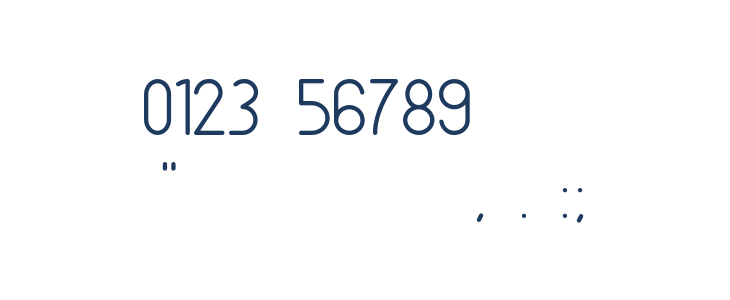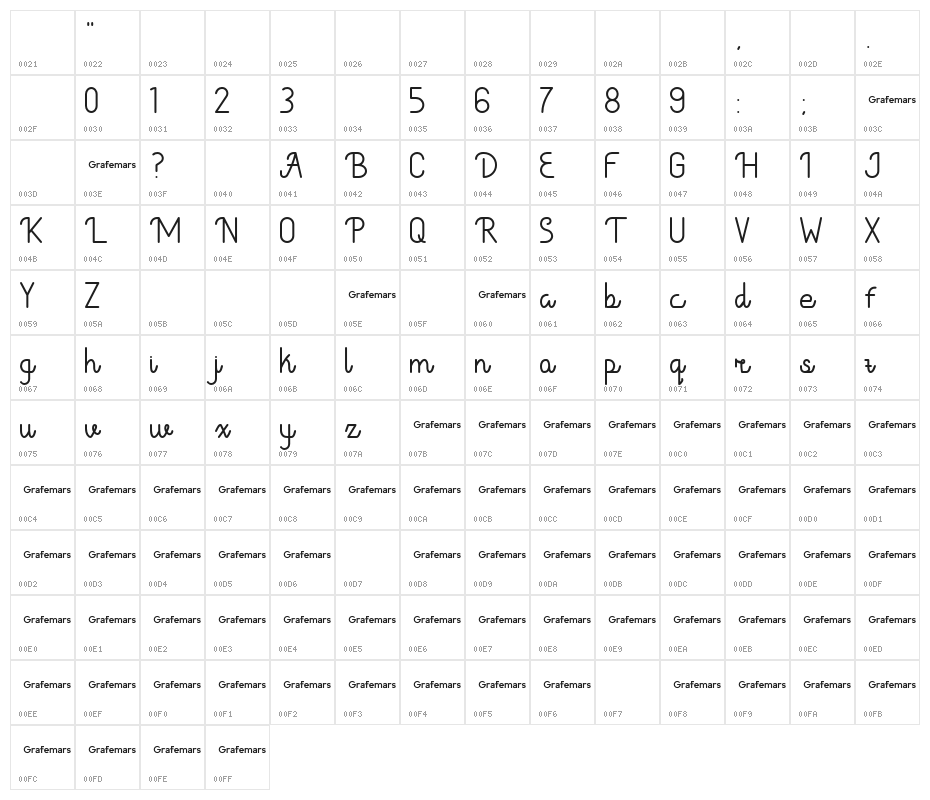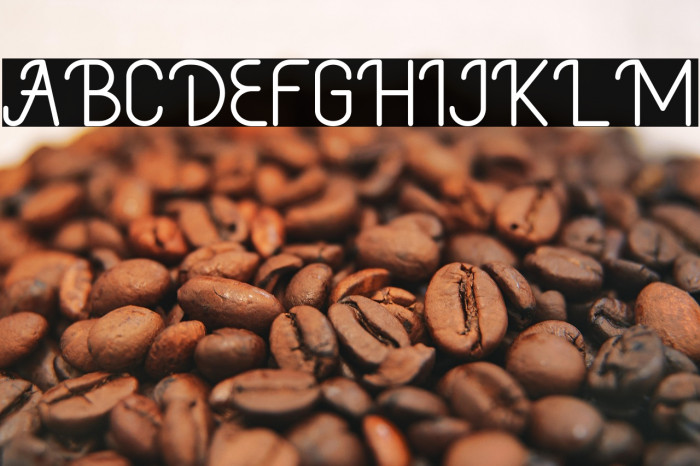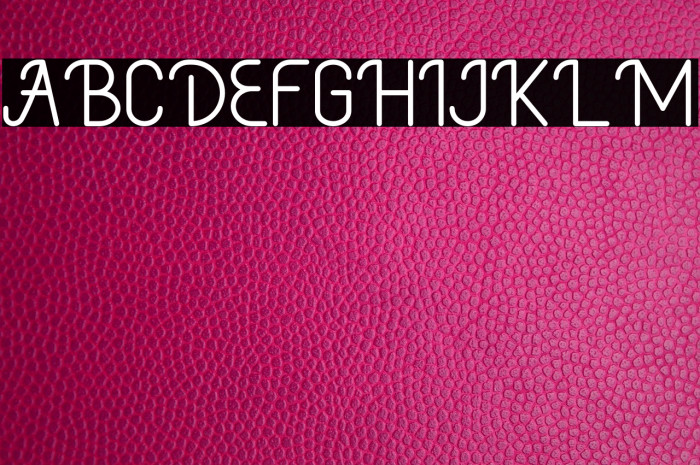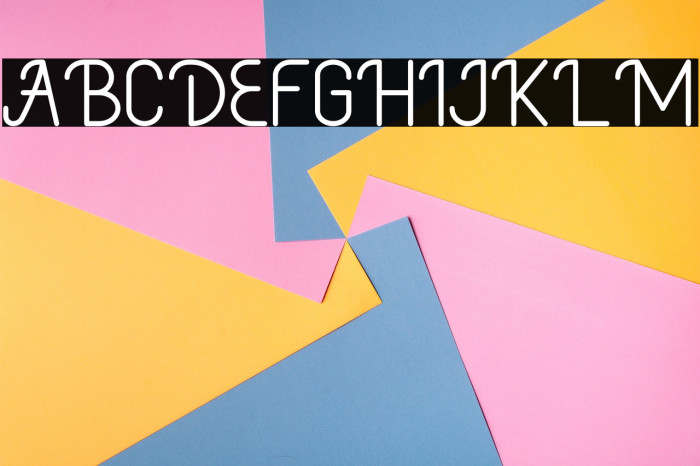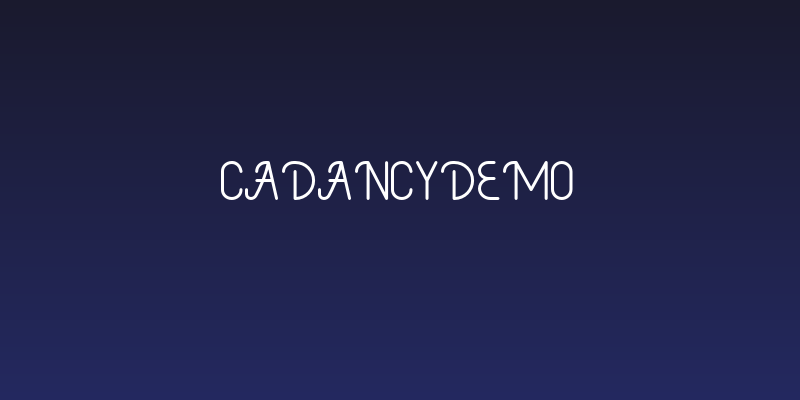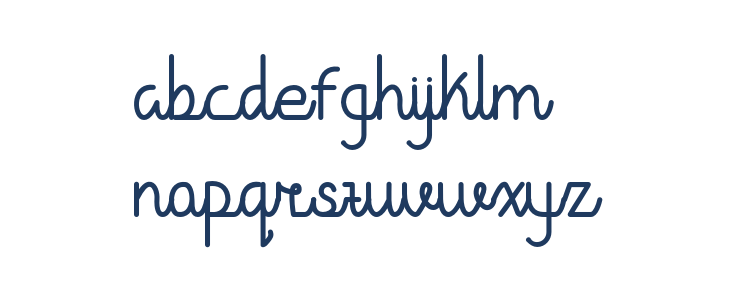
CadancyDemo Font
CadancyDemo Description
This font features a unique blend of modern and playful elements, characterized by its rounded, monolinear strokes. The uppercase letters maintain a consistent height and width, offering a clean and structured appearance. The lowercase letters introduce a slight cursive flair, adding a touch of whimsy and fluidity to the overall design. The numerals are straightforward and align well with the overall style, ensuring readability. Special characters are thoughtfully integrated, maintaining the font's cohesive look. This font's simplicity and charm make it versatile for various design applications.
| Overall Style | Modern, Playful |
| Use Case | Headlines, Logos, Invitations |
| Proposed Projects | Ideal for children's books, playful branding, casual invitations, and modern web design. |